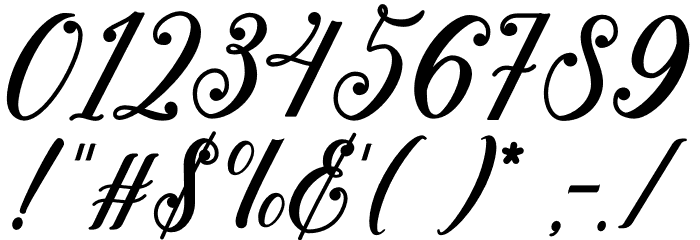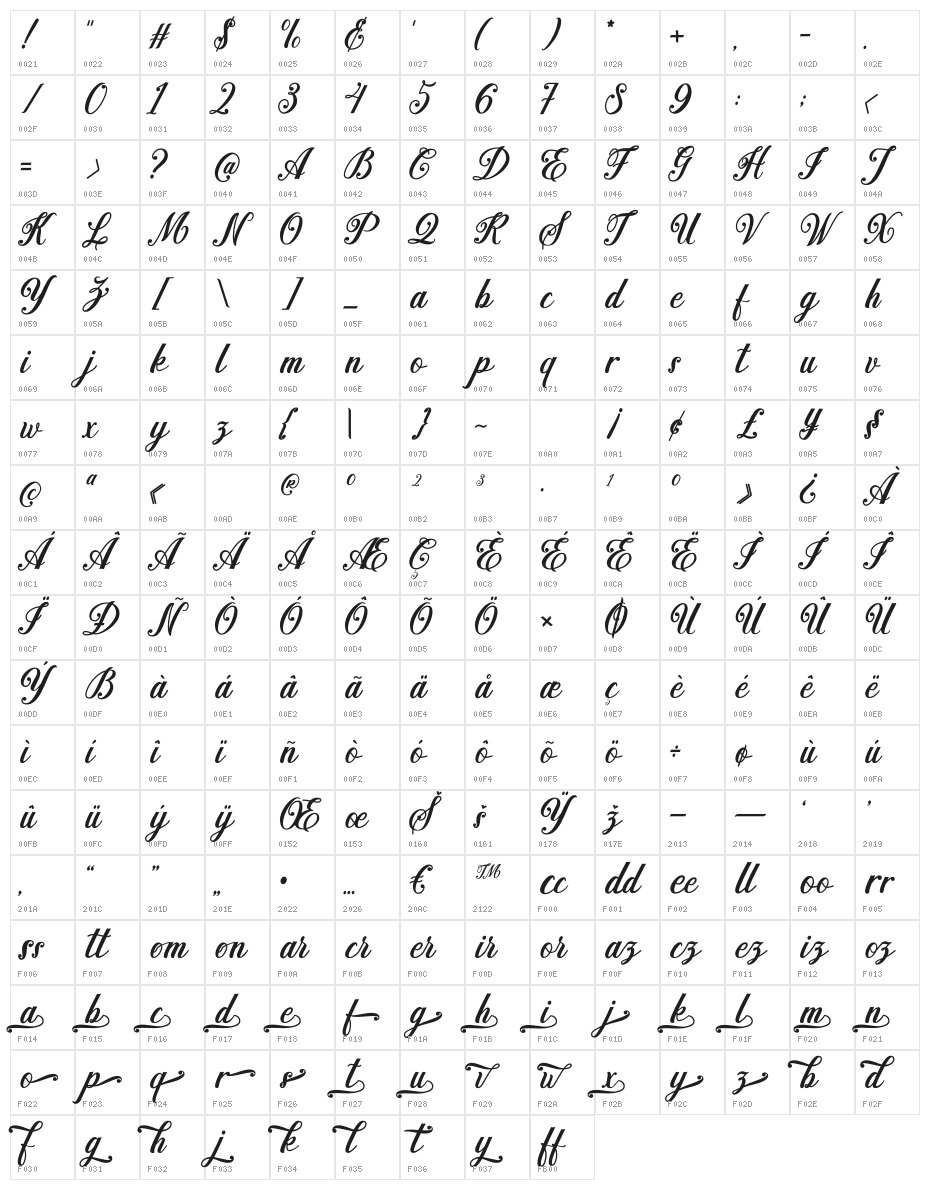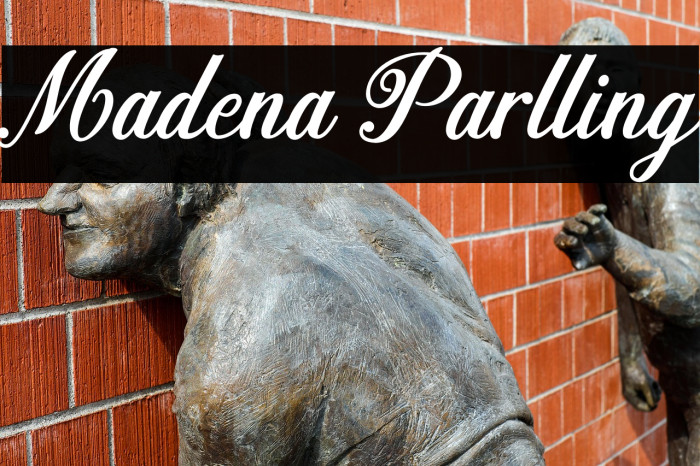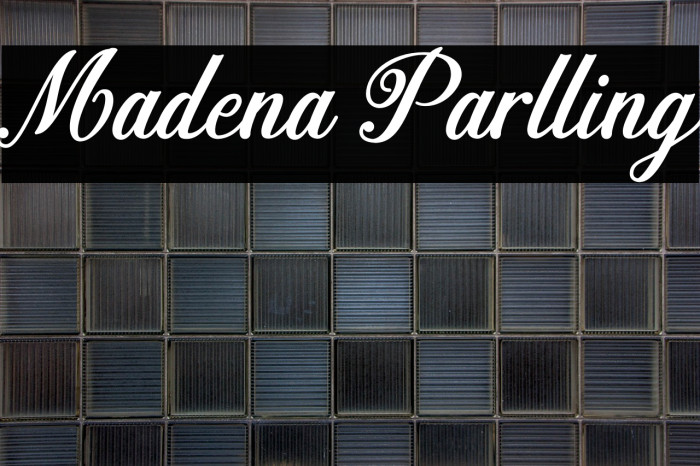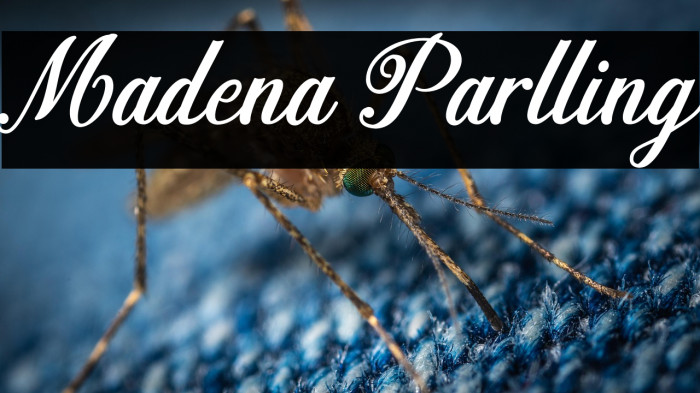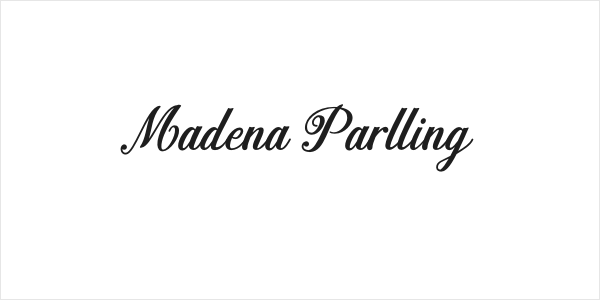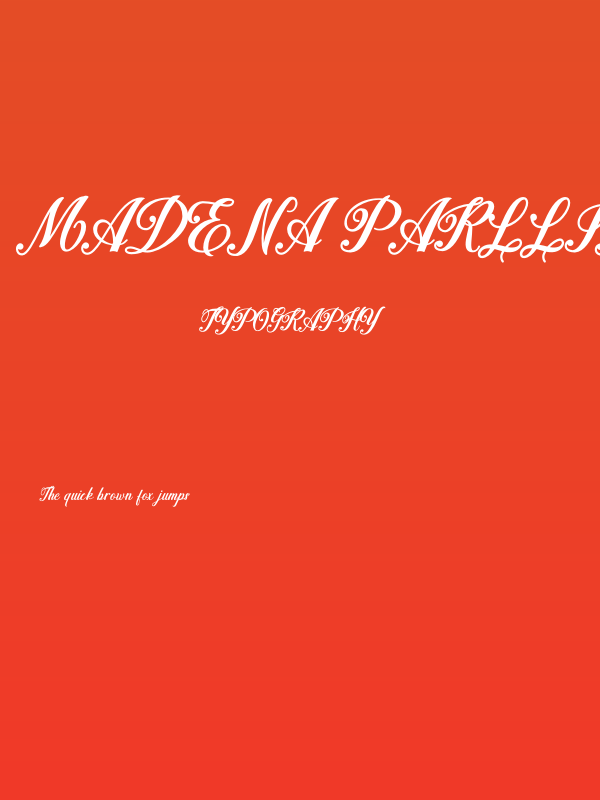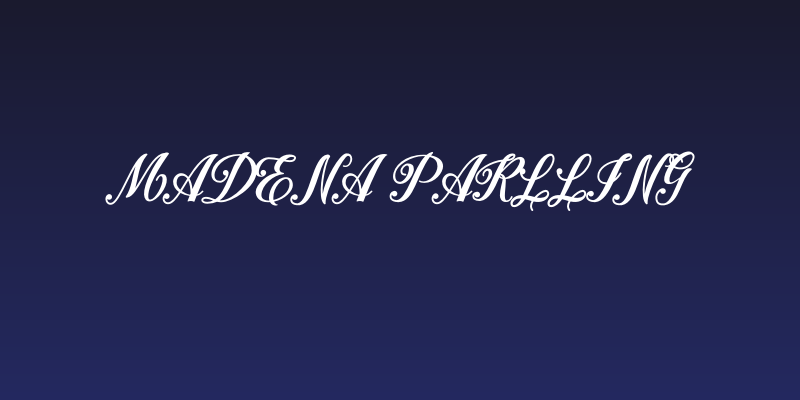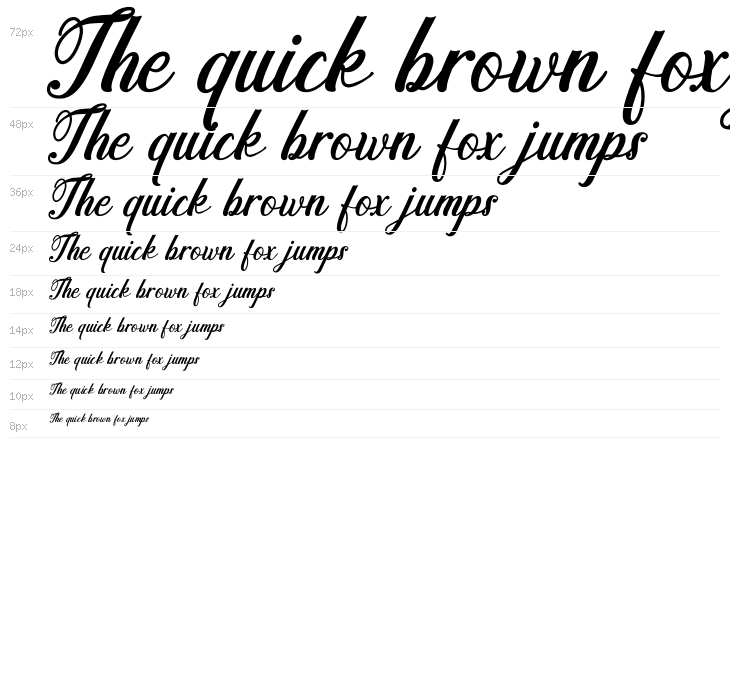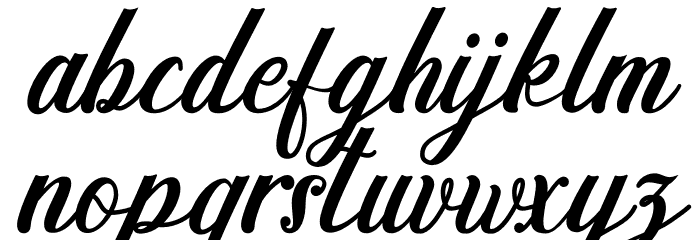
Madena Parlling Font
Madena Parlling Description
This elegant script font features flowing, interconnected letters with a classic and sophisticated appearance. The uppercase letters are ornate, with flourishes that add a touch of formality and grace. The lowercase letters maintain a consistent flow, enhancing readability while retaining an artistic flair. Numbers and special characters are designed to match the overall style, with smooth curves and balanced proportions. This font is ideal for projects that require a touch of elegance and sophistication, such as wedding invitations, formal event programs, or luxury branding.
| Use Case | Headlines, Invitations, Branding |
| Proposed Projects | Wedding invitations, luxury branding, formal event programs, elegant packaging. |